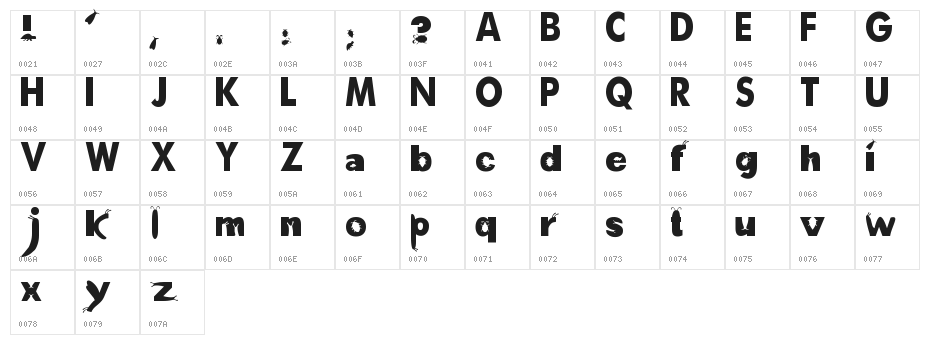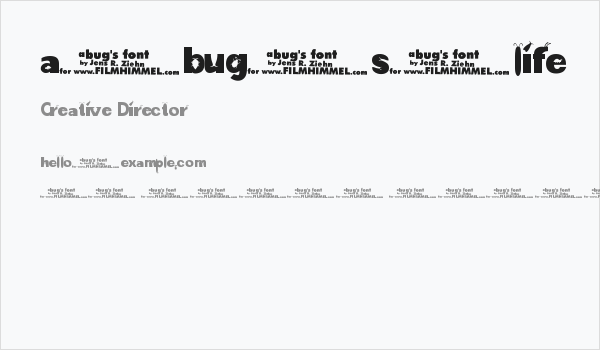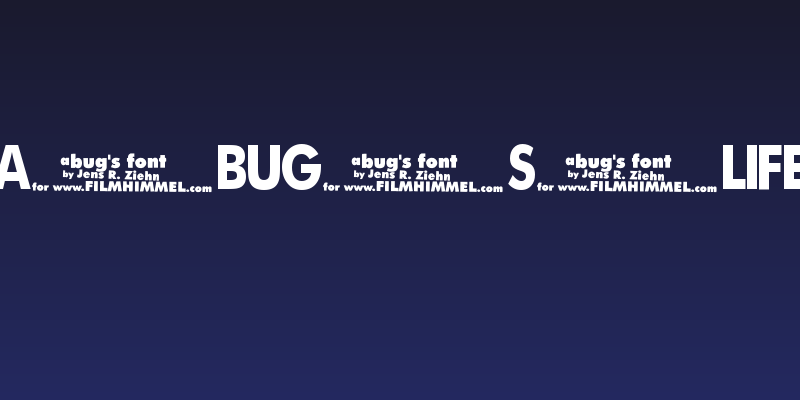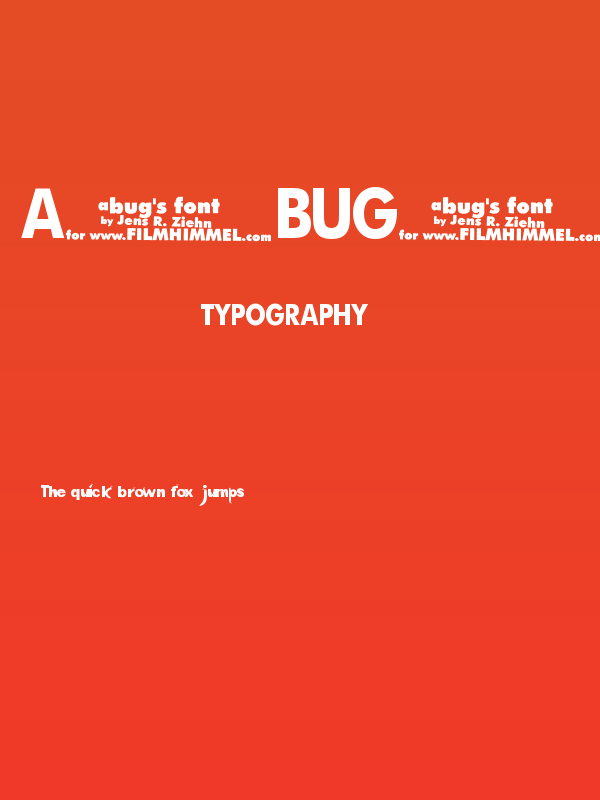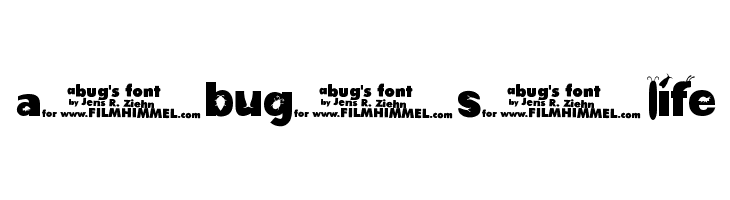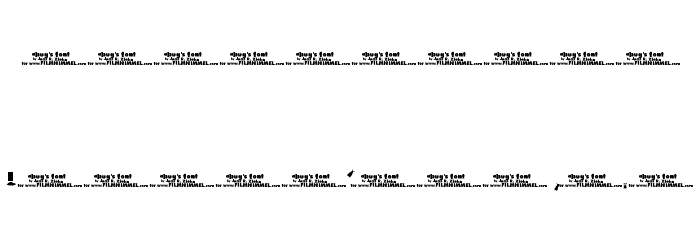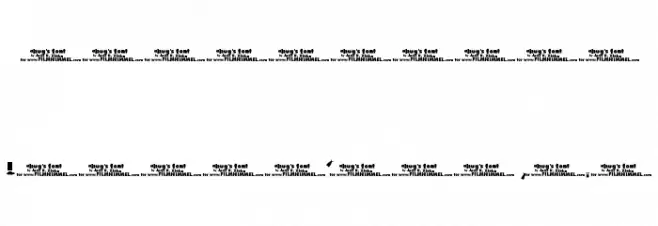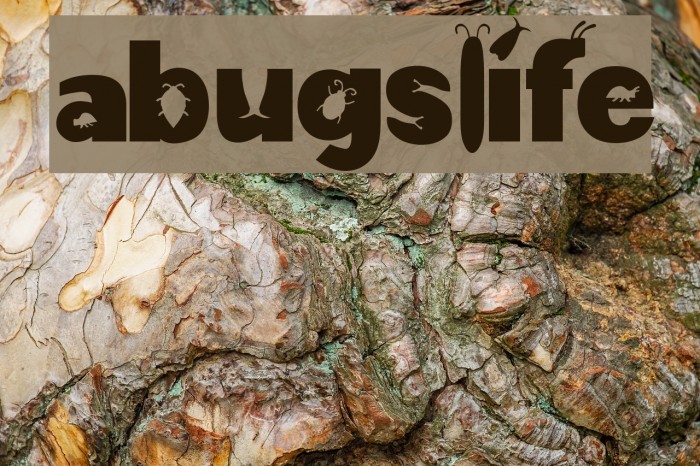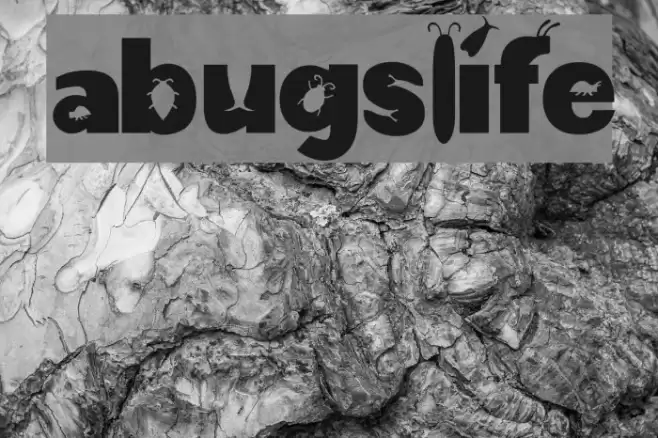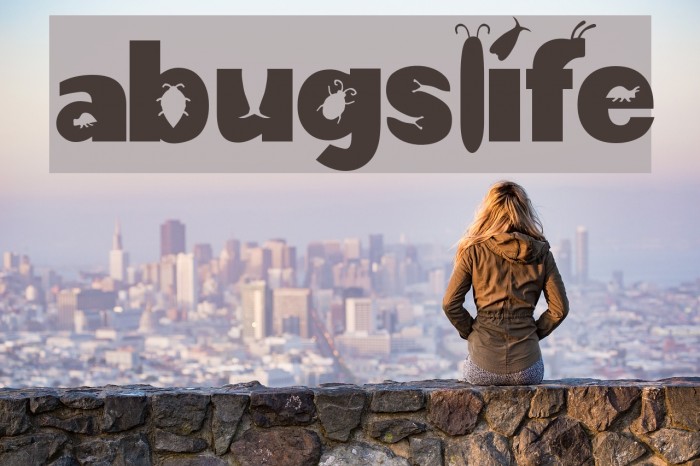
a-bug-s-life Font
a-bug-s-life Description
This playful and whimsical font features bold, thick strokes with unique insect-like elements integrated into the characters. The uppercase letters are solid and straightforward, while the lowercase letters incorporate quirky details such as antennae and legs, adding a fun and lively character to the text. The font maintains a consistent weight throughout, ensuring readability despite its decorative nature. Its distinct style makes it ideal for projects that require a touch of humor and creativity.
| Overall Style | Whimsical, Playful |
| Proposed Projects | Ideal for children's books, animated movie titles, playful branding, and educational materials. |